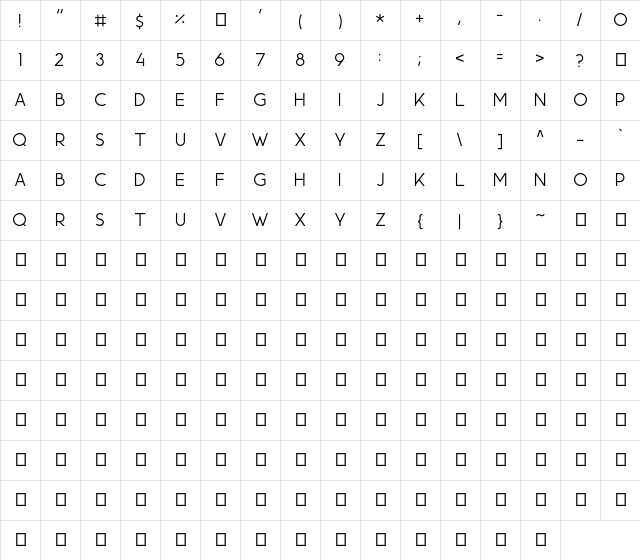
Momcake Thin Font Preview
Momcake Thin
Momcake Thin Font Details
Design Context for Momcake Typeface
Momcake offers clean, dependable letterforms without strong stylistic allegiance, making it a practical choice for designers who need flexibility. The delicate stroke weight brings airiness and refinement to layouts.